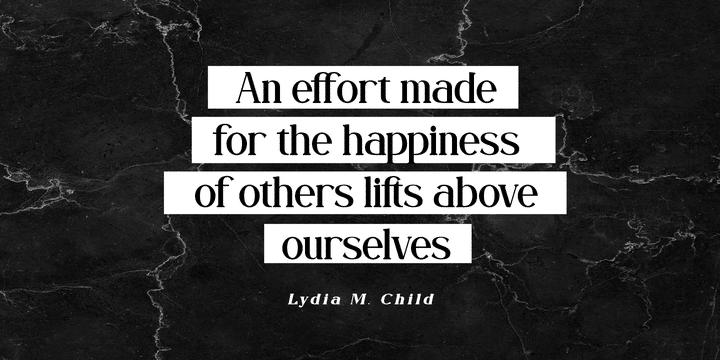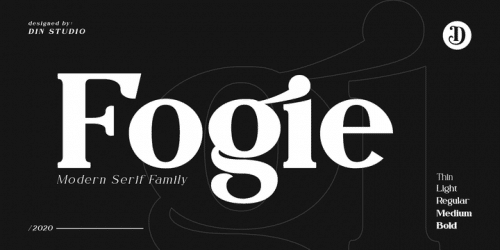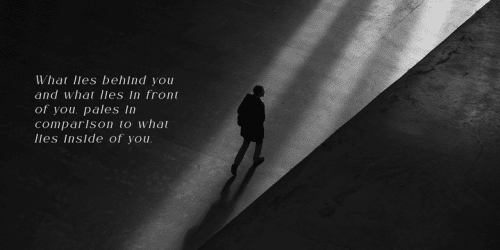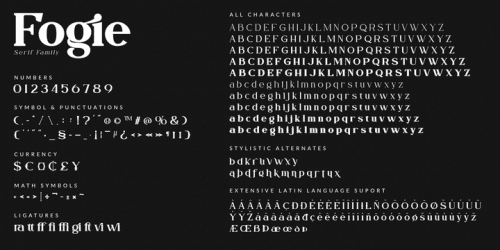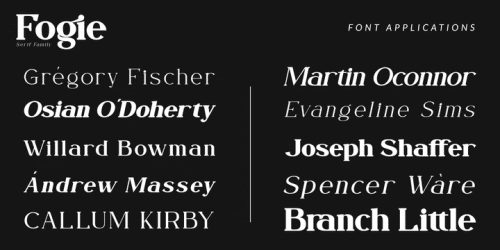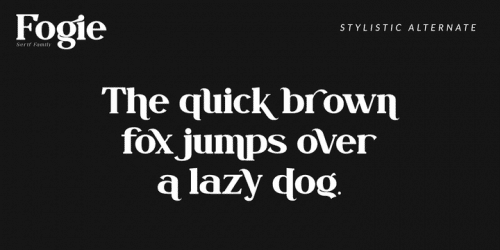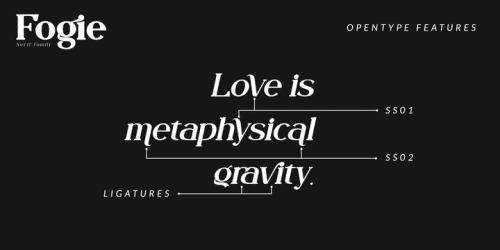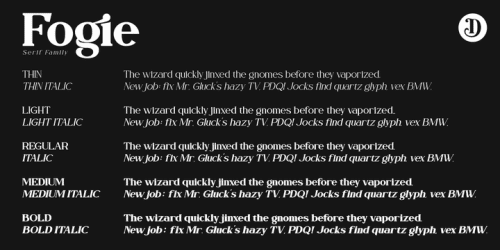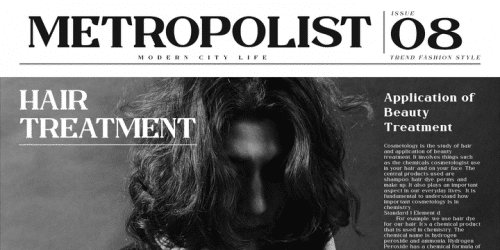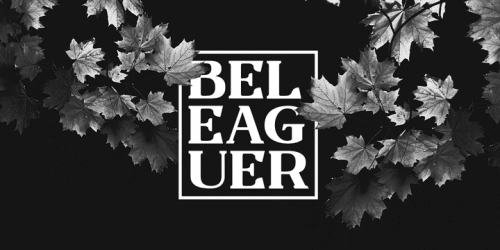
Fogie is a modern serif family font. Features with 10 fonts. This family also featured with many ligatures and alternates. Designed with powerful OpenType features in mind and perfectly suited for graphic design and any display use. It could easily work for web, signage, corporate as well as for editorial design. The Thin style is free so you can try this for your content.